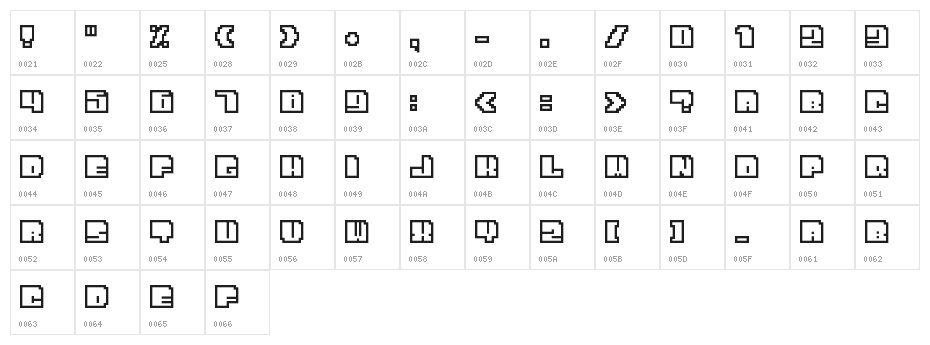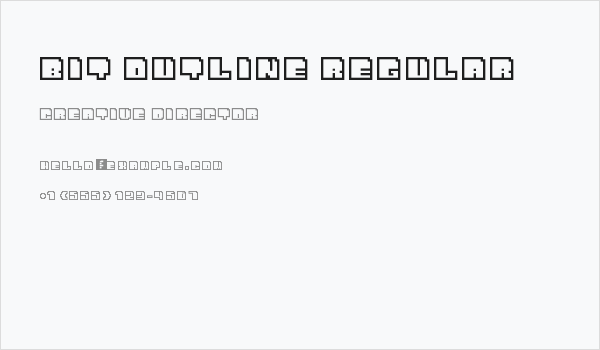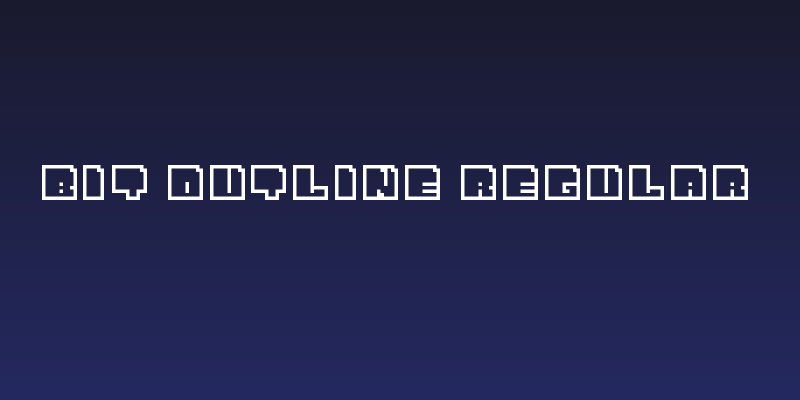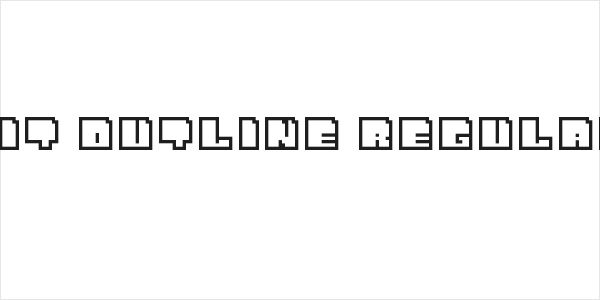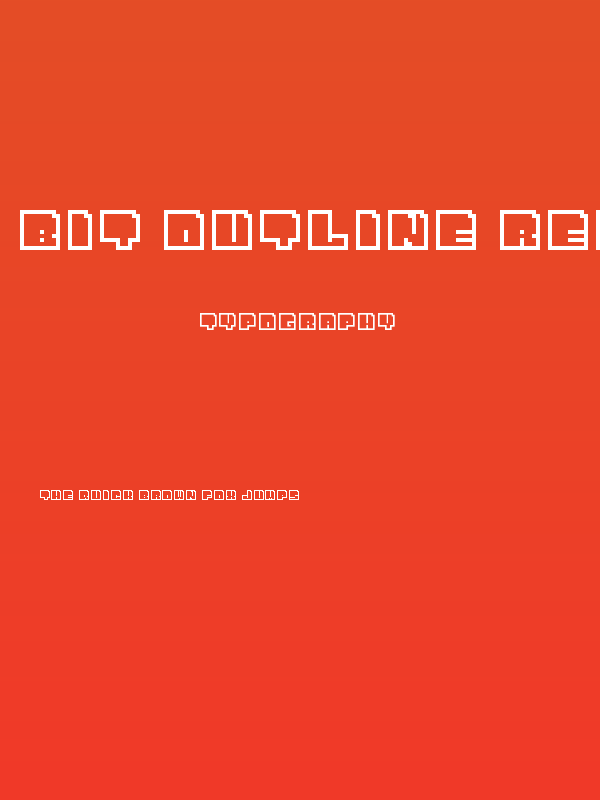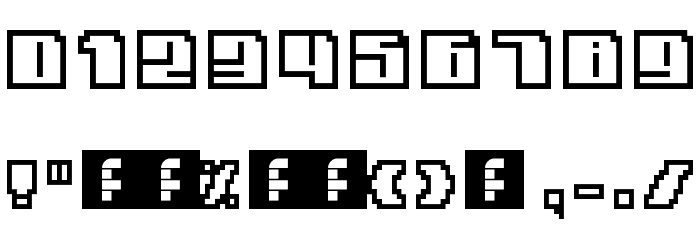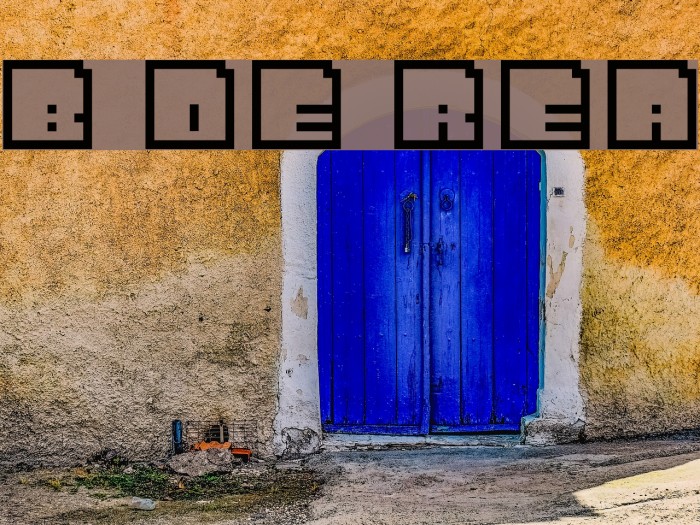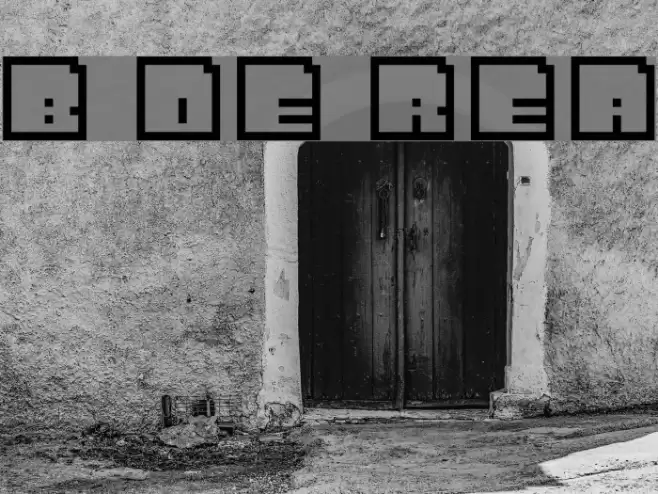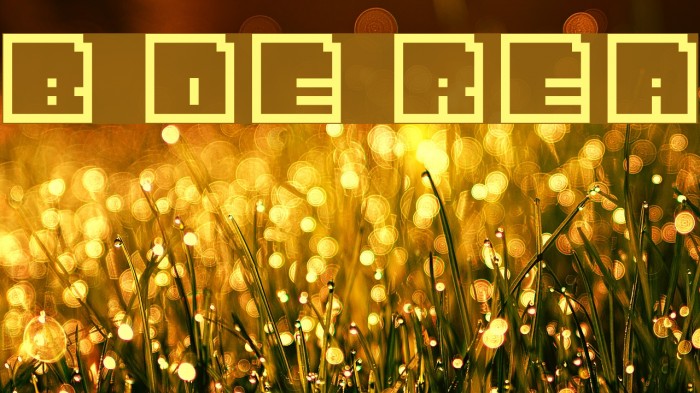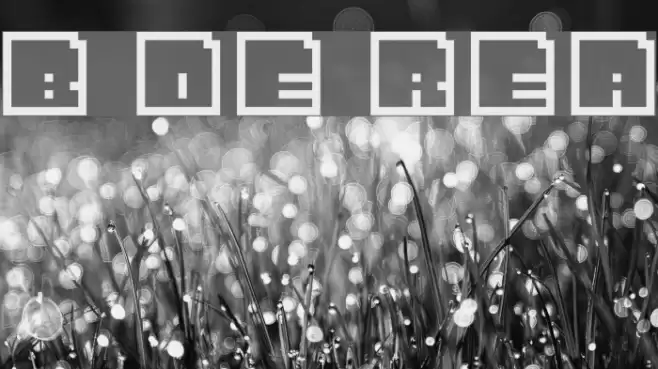
Bit Outline Regular Font
Bit Outline Regular Description
This font features a distinct pixelated outline style, reminiscent of retro video games and digital displays. Each character is constructed with a blocky, geometric design, emphasizing a bold, outlined appearance. The uppercase and lowercase letters maintain a consistent height, contributing to a uniform and cohesive look. The numerals and special characters follow the same aesthetic, ensuring a seamless integration across different text elements. The font's design is both playful and nostalgic, making it ideal for projects that aim to capture a vintage or tech-inspired feel.
| Overall Style | Retro, Digital |
| Proposed Projects | Ideal for video game graphics, retro-themed posters, digital art, and tech-inspired branding. |